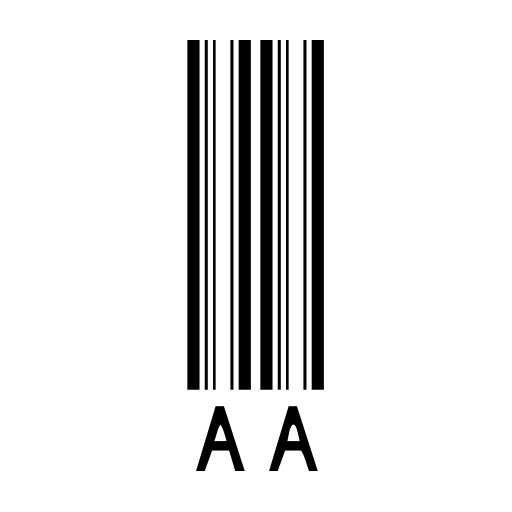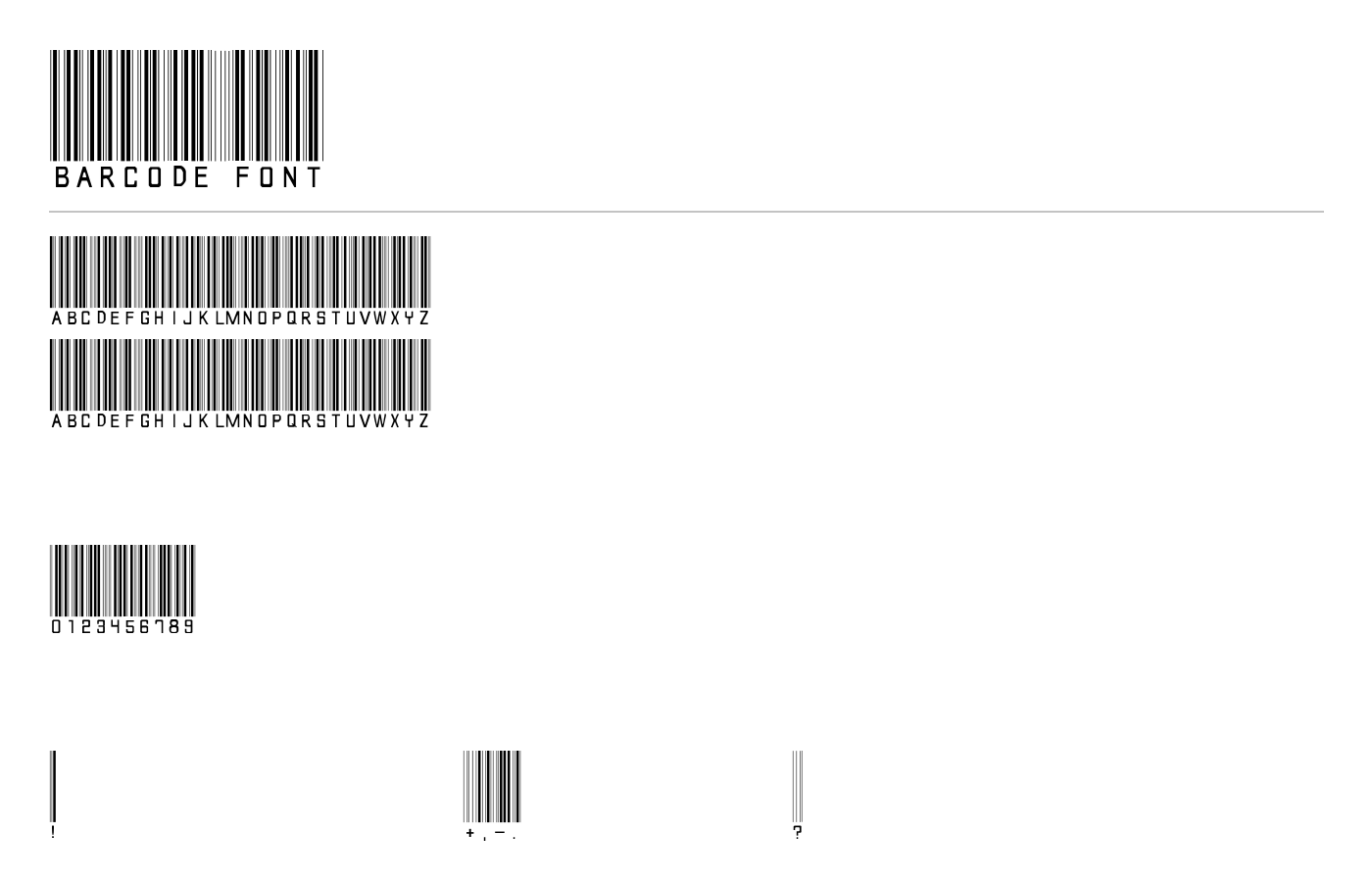
Barcode font is a unique, mono-weighted sans serif typeface designed to mimic the appearance of traditional barcode lines. It features tall, narrow letterforms with uniform stroke widths and a mechanical, precision look, ideal for creating a modern, tech-inspired, or industrial aesthetic. This font works well for packaging, promotional materials, and branding that wants to evoke themes of technology, commerce, or data.